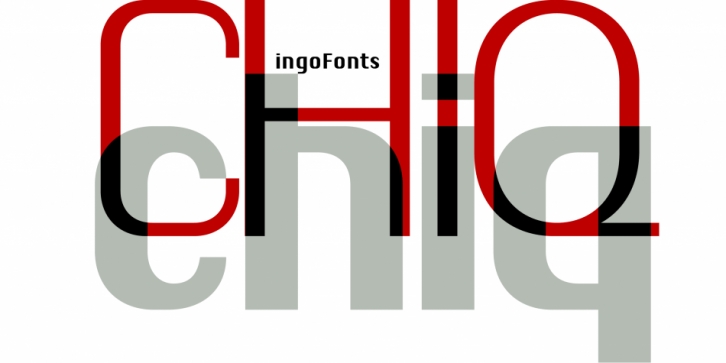
Publisher: ingoFonts
Designed by Ingo Zimmerman, Chiq Pro is a sans serif font family. This typeface has eight styles and was published by ingoFonts.
A modern sans serif – very matter-of-fact, reminds you of Apple’s Mac OS9, only better
As the name implies, the ingoFont Chiq reflects back on a well-known system font from Apple. With the revision and expansion of the good old ”Chicago,“ I want to make these forms available for the future as well.
The name Chiq is a reminder of the original pattern. And so the ingoFont Chiq offers the possibility to conjure up the impression of the old Macintosh operating system Mac OS9 for use in the future.
The font is even clearer than the old ”Chicago“, and in a way speaks an even more modern form language. With eight versions Chiq clearly reaches beyond its archetype; and thus allows a wide spectrum for application.